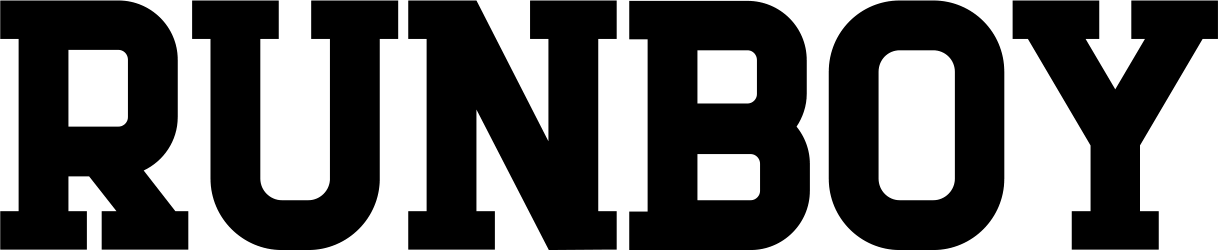
Runboy Font
Runboy is an old-school font its characters are designed very boldly, so it has good readability. This font conveys a sense of classic, traditional, jaunty, and vivacity to the audience, so it can be used to design creative content such as billboards, traffic signs, book covers, e-books, and web page templates.